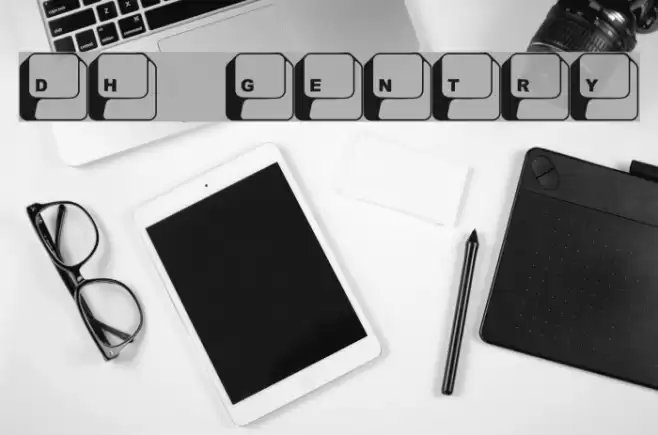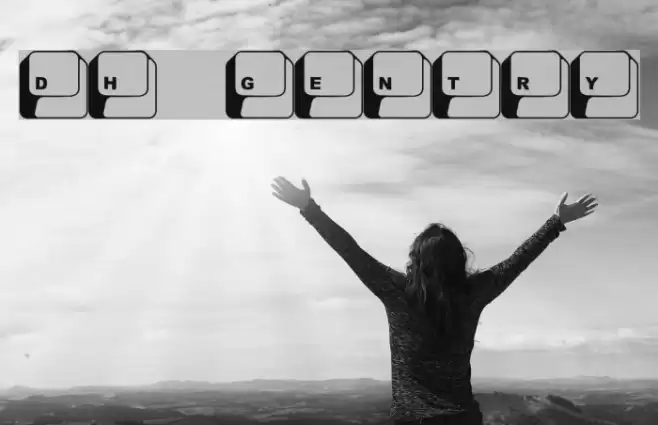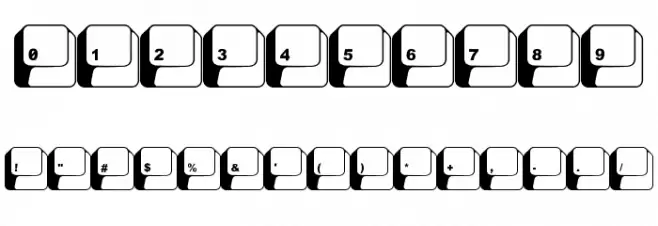
DH GENTRY Font
DH GENTRY Description
This font features a unique, three-dimensional style reminiscent of keys on a keyboard. Each character is encased in a square with rounded corners, giving it a distinct, blocky appearance. The letters and numbers are bold and clear, with a slight shadow effect that enhances the 3D illusion. The font maintains a consistent size and shape across all characters, providing a uniform look. It combines elements of both modern and retro design, making it versatile for various creative applications. The special characters are also designed with the same keycap style, ensuring cohesion throughout the set.
A 3D keyboard keycap-style font with bold, uniform characters from Uncategorized fonts.
- Proposed Projects: Ideal for tech-themed designs, gaming interfaces, retro digital art, and educational materials.